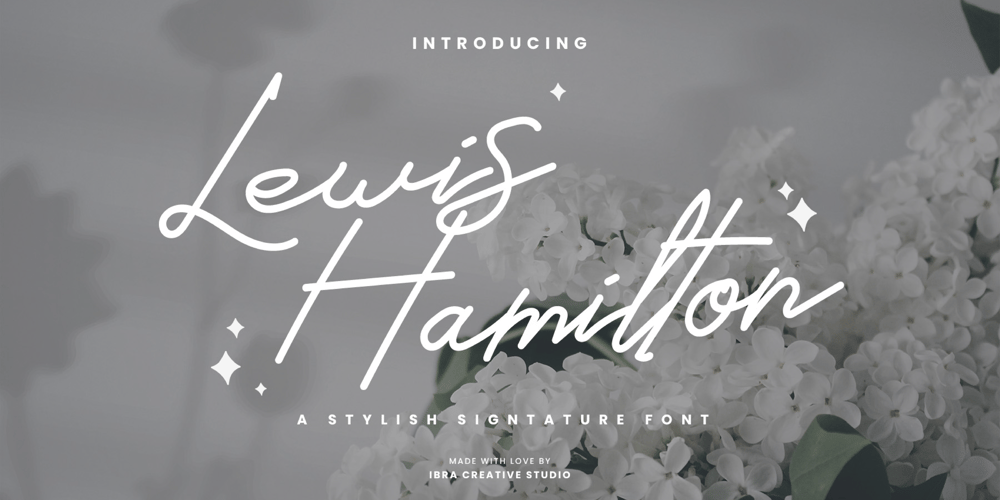
Lewis Hamilton
Lewis Hamilton font
Lewis Hamilton Font Family was designed by Roisatul Azizah and published by IbraCreative. Lewis Hamilton contains 1 styles and family package options. Lewis Hamilton is a stylish signature font that embodies elegance and sophistication. Inspired by the signature of the renowned Formula One driver, Lewis Hamilton, this typeface exudes a sense of confidence and refinement. Each letter carries a graceful flow, reminiscent of a personalized signature, adding a touch of exclusivity to any design. With its sleek lines and carefully crafted curves, Lewis Hamilton captures the essence of a stylish and modern aesthetic. Whether used for branding, luxury products, or high-end invitations, this font brings a sense of prestige and class. Lewis Hamilton is the perfect choice for those seeking a signature font that exudes timeless style and a touch of celebrity allure.